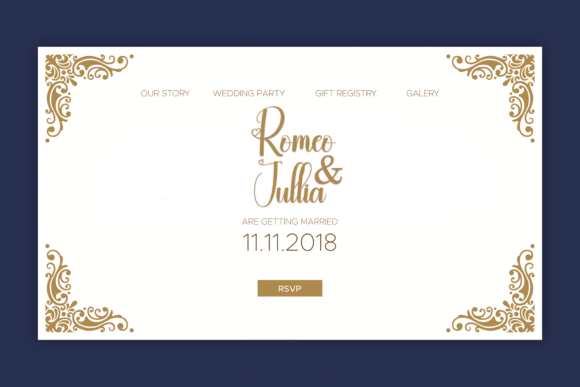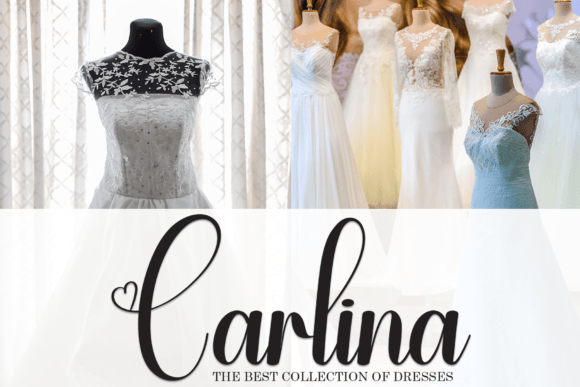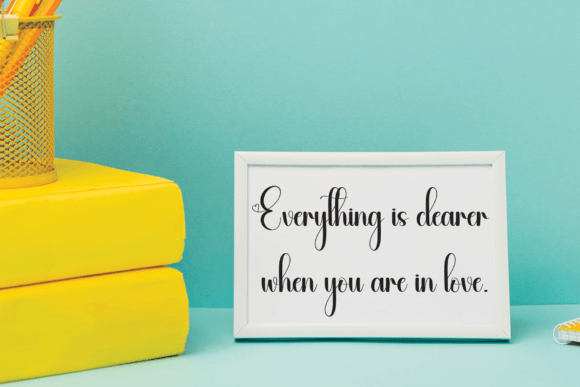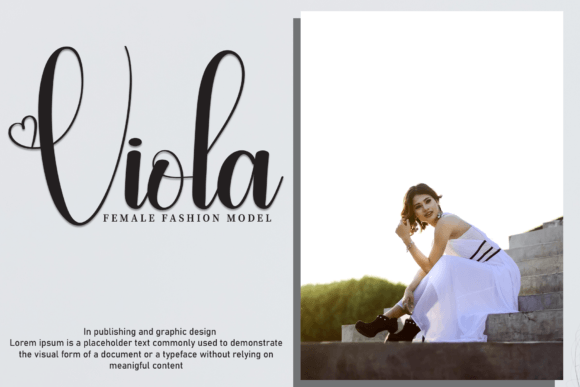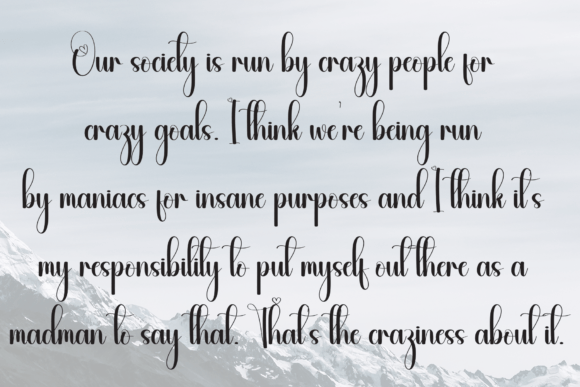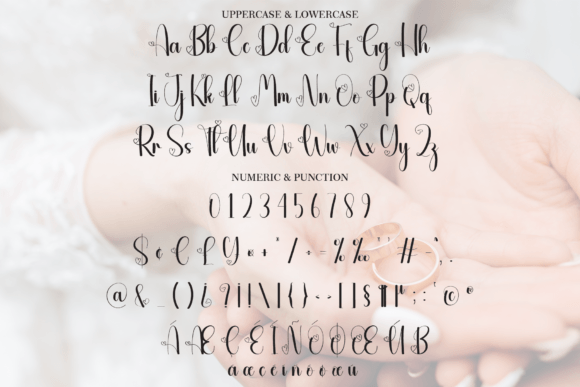
Introducing Fiance Font: The Sweet and Friendly Handwritten Font for Your Wedding and Design Needs
Are you searching for a font that exudes warmth, love, and a touch of whimsy? Look no further than Fiance Font, a beautiful handwritten font that’s perfect for adding a personal and romantic touch to your wedding invitations, cards, and designs. In this article, we’ll dive into the world of Fiance Font, exploring its features, benefits, and uses, as well as provide tips and inspiration for designers and crafters.
What is Fiance Font?
Fiance Font is a sweet and friendly handwritten font that’s designed to bring a sense of freshness and casual elegance to your designs. With its flowing curves and delicate lines, this font is ideal for creating beautiful wedding invitations, cards, and other paper crafts that require a personal touch. Whether you’re a designer, crafter, or DIY enthusiast, Fiance Font is a versatile and charming choice that’s sure to delight.
Key Features of Fiance Font
- Sweet and Friendly: Fiance Font has a warm and inviting personality that’s perfect for wedding and love-themed designs.
- Handwritten: This font has a beautiful, handwritten feel that’s perfect for adding a personal touch to your designs.
- Fresh and Casual: Fiance Font has a lighthearted and carefree vibe that’s ideal for creating modern and stylish designs.
- Versatile: This font can be used for a wide range of design projects, from wedding invitations and cards to scrapbooking and paper crafting.
Benefits of Using Fiance Font
So why choose Fiance Font for your design needs? Here are just a few benefits of using this lovely font:
- Adds a Personal Touch: Fiance Font’s handwritten feel adds a personal and emotional touch to your designs, making them more special and meaningful.
- Creates a Romantic Atmosphere: This font’s sweet and friendly personality creates a romantic and whimsical atmosphere that’s perfect for wedding and love-themed designs.
- Easy to Read: Fiance Font is clear and easy to read, making it perfect for body text and headlines.
- Customizable: This font can be easily customized to fit your design needs, from adjusting the size and color to adding effects and textures.
Using Fiance Font in Your Designs
So how can you use Fiance Font in your designs? Here are a few ideas to get you started:
- Wedding Invitations: Use Fiance Font to create beautiful and elegant wedding invitations that set the tone for your special day.
- Cards and Stationery: Add a personal touch to your cards and stationery with Fiance Font’s sweet and friendly personality.
- Scrapbooking: Use Fiance Font to add captions and journaling to your scrapbook pages, creating a beautiful and personalized keepsake.
- Paper Crafting: Fiance Font is perfect for paper crafting projects, from card making to origami and other paper crafts.
Tips and Inspiration for Designers and Crafters
Here are a few tips and inspiration ideas for designers and crafters looking to use Fiance Font in their projects:
- Pair with Other Fonts: Experiment with pairing Fiance Font with other fonts to create a unique and stylish look.
- Add Texture and Patterns: Add texture and patterns to your designs to give them a more organic and handmade feel.
- Experiment with Color: Try out different colors and color combinations to find the perfect match for your design.
- Get Creative: Don’t be afraid to get creative and try out new and innovative ways to use Fiance Font in your designs.
In conclusion, Fiance Font is a beautiful and versatile handwritten font that’s perfect for adding a personal and romantic touch to your wedding invitations, cards, and designs. With its sweet and friendly personality, fresh and casual vibe, and ease of use, this font is a must-have for designers and crafters looking to create stunning and memorable designs.